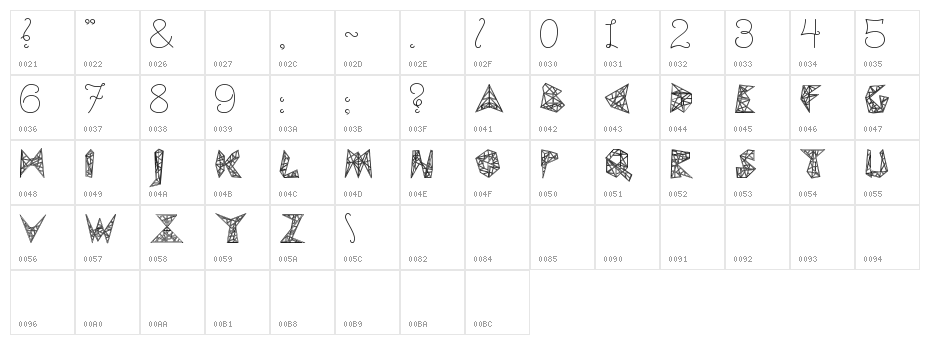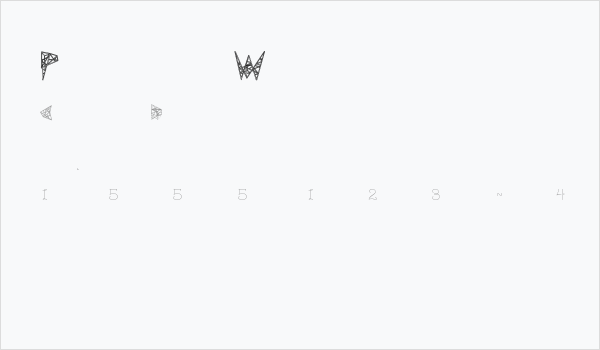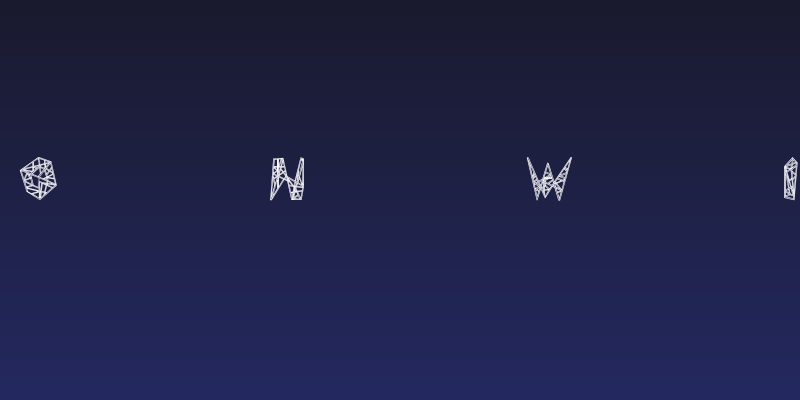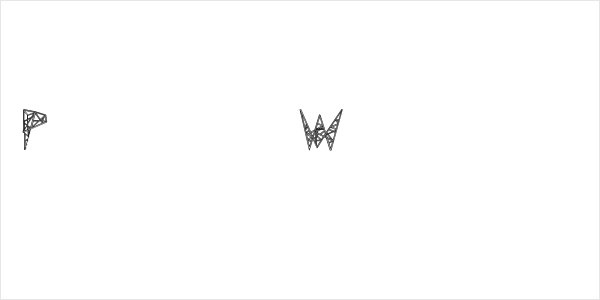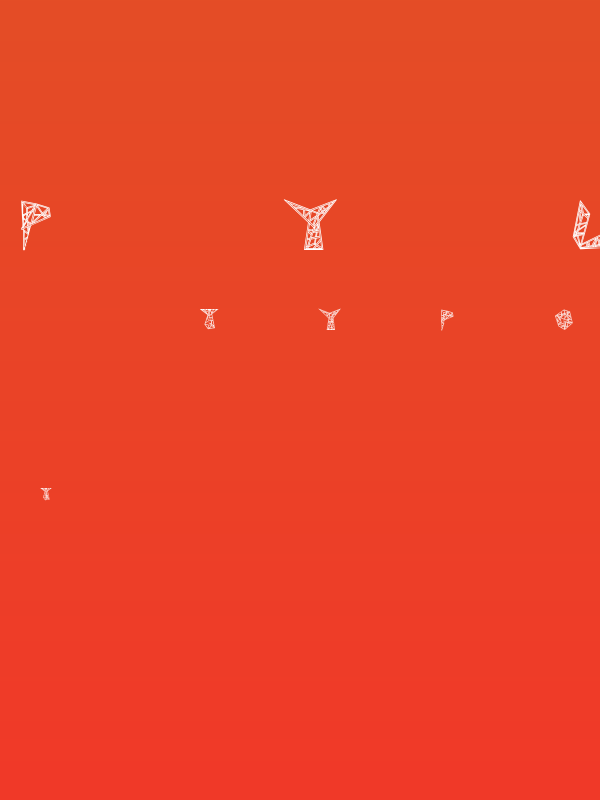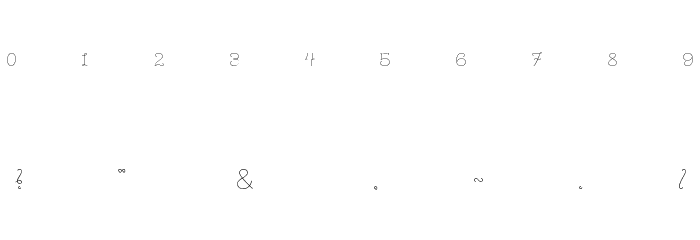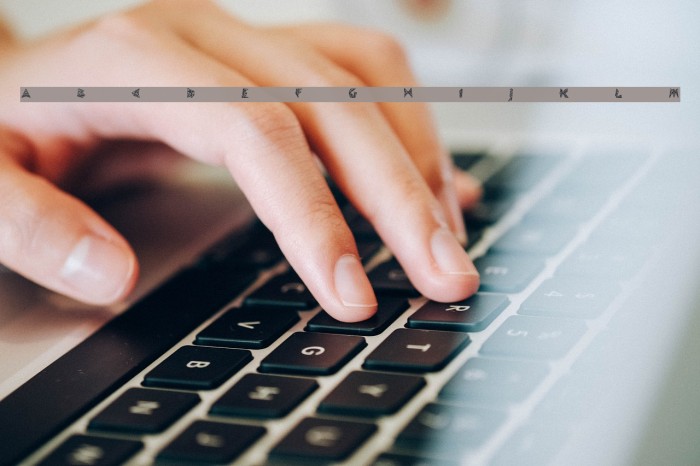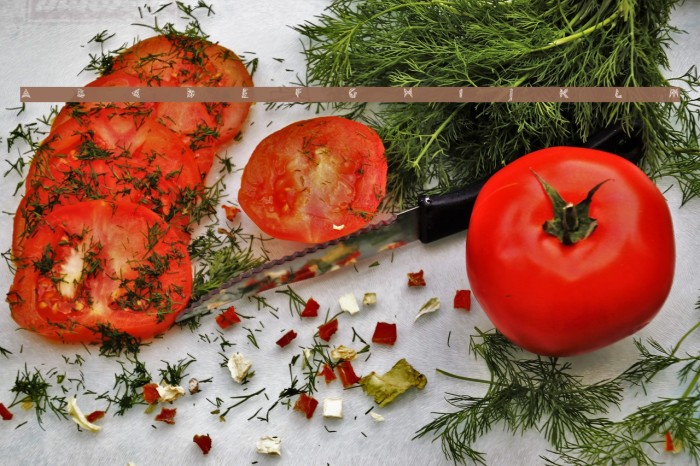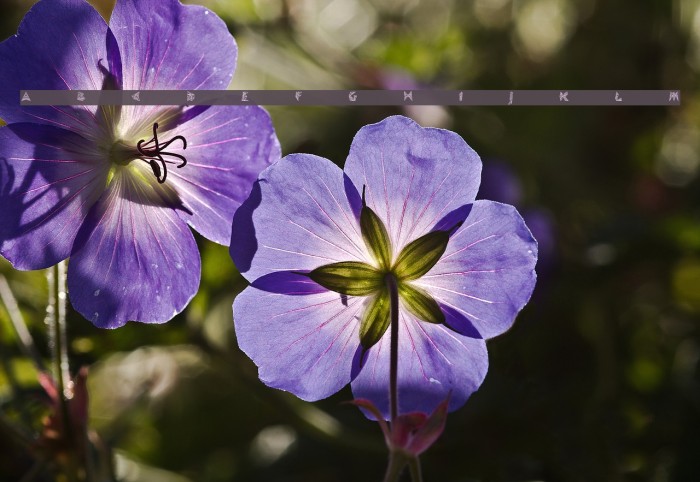
Pylon Wide Font
Pylon Wide Description
This font features a distinctive geometric style with a modern twist. The characters are constructed with clean lines and sharp angles, giving them a futuristic and technical appearance. The uppercase letters are particularly striking, with unique shapes that make them stand out. The lowercase letters maintain a consistent style, complementing the uppercase set. Numbers and special characters are designed with the same attention to detail, ensuring a cohesive look across all glyphs. The font's minimalistic design makes it versatile for various applications, while its unique character shapes add a touch of creativity.
| Proposed Projects | Ideal for tech branding, modern posters, and innovative product packaging. |